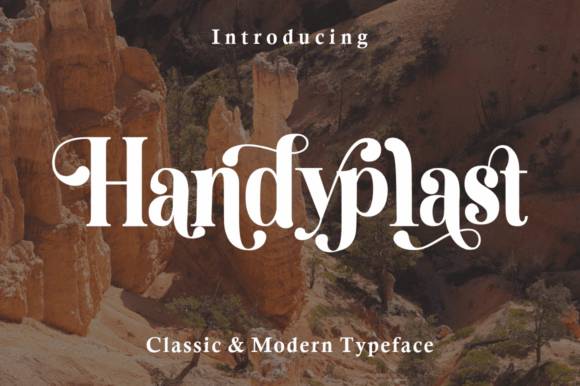
Introducing Handyplast Font: Elevate Your Brand with Elegance and Boldness
In the world of typography, fonts play a crucial role in shaping the identity of a brand. A well-chosen font can instantly convey the tone, personality, and values of a brand, making it an essential element in any design. If you’re looking for a font that exudes elegance, boldness, and a touch of vintage charm, look no further than Handyplast Font. This classy serif font is designed to bring attention to your brand and designs, making it perfect for a wide range of applications.
What Makes Handyplast Font Stand Out?
- Classy Serif Font: Handyplast Font boasts a traditional serif design, which gives it a timeless and sophisticated look.
- Curvy Ligatures: What sets Handyplast apart is its unique set of curvy ligatures, adding a touch of elegance and flair to your text.
- Bold and Elegant: This font strikes the perfect balance between boldness and elegance, making it suitable for a variety of design applications.
- Modern yet Vintage: Handyplast Font seamlessly blends modern sensibilities with vintage charm, giving your brand a unique and distinctive voice.
Endless Design Possibilities with Handyplast Font
The versatility of Handyplast Font makes it an excellent choice for various design projects. Here are some ideas to get you started:
- Logo and Branding: Create a lasting impression with a logo that exudes elegance and sophistication.
- Advertisements: Grab attention with bold and eye-catching ads that showcase your brand’s personality.
- Craft Projects: Add a touch of handmade charm to your craft projects, such as papercrafts, journals, and more.
- Shirts and Merchandise: Design stylish and memorable apparel that stands out from the crowd.
- Decor and Wedding Invitations: Create beautiful and elegant decor, wedding invitations, and stationery that reflect your personal style.
- Packaging and Stickers: Elevate your product packaging and stickers with a font that adds a touch of sophistication.
- Social Media and Quotes: Make your social media posts and quotes stand out with a font that’s both bold and elegant.
- Magazines and Publications: Use Handyplast Font to add a touch of class and sophistication to your magazine or publication.
Tips for Using Handyplast Font Effectively
To get the most out of Handyplast Font, here are some typography tips to keep in mind:
- Pair it with Simplicity: Let Handyplast Font be the focal point of your design by pairing it with simple backgrounds and minimal graphics.
- Experiment with Colors: Try out different color combinations to find the perfect match for your brand and design.
- Play with Ligatures: Take advantage of Handyplast’s unique ligatures to add a touch of elegance and personality to your text.
- Balance Boldness and Elegance: Find the perfect balance between boldness and elegance by adjusting font sizes, weights, and styles.
Get Inspired: Examples of Handyplast Font in Action
See how Handyplast Font can elevate your designs with these inspiring examples:
Handyplast Font is a versatile and elegant serif font that’s perfect for designers, crafters, and businesses looking to add a touch of sophistication to their projects. With its unique curvy ligatures, bold and elegant design, and endless possibilities for use, Handyplast Font is sure to become a staple in your design toolkit. Download Handyplast Font today and take your designs to the next level!